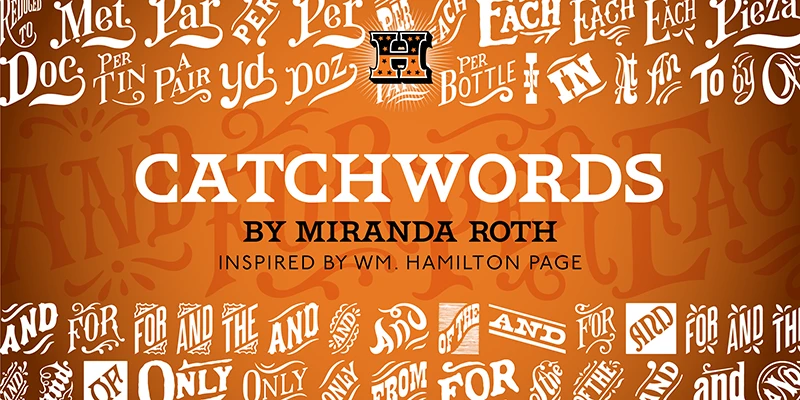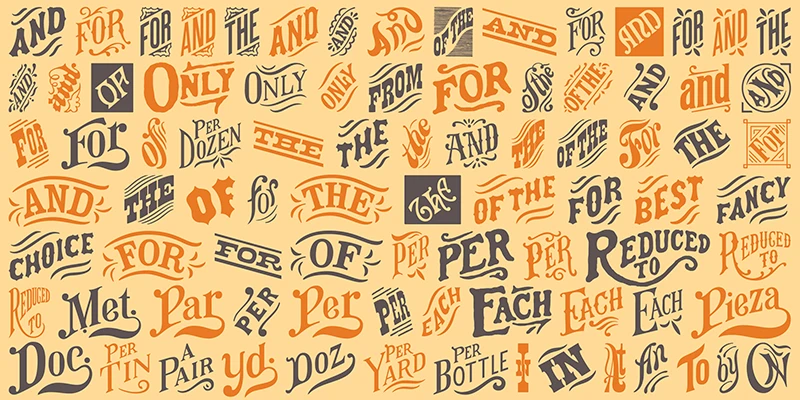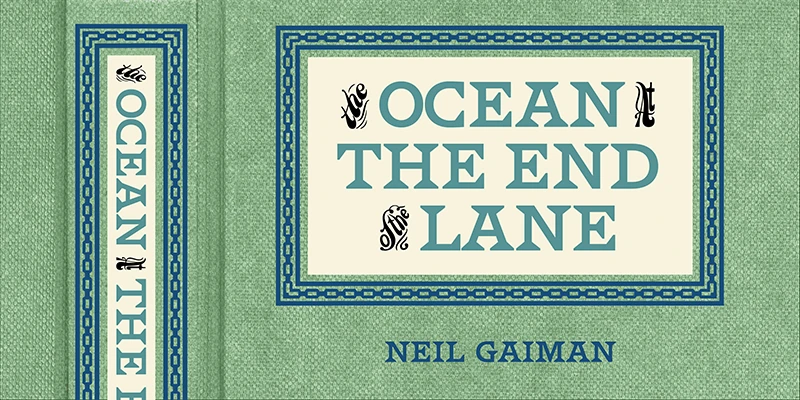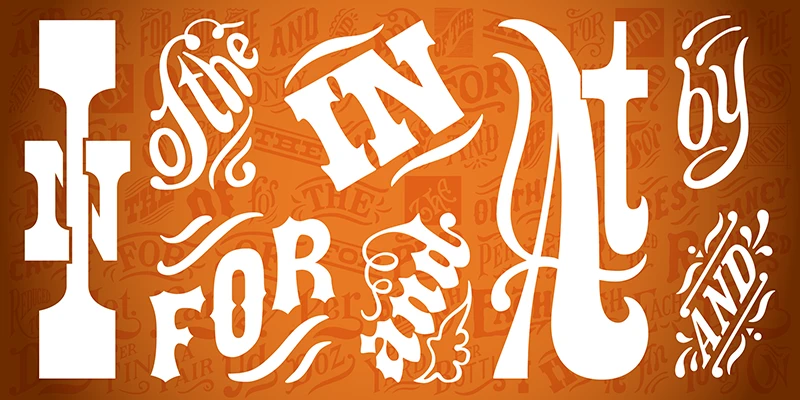
Fonts like HWT Catchwords have always been offered alongside standard alphabets in wood type catalogs. They appear so often on posters as a decorative punch that they have become part of the wood type vernacular. These words could be inserted into a design along with decorative ornaments when space was tight or to add variety to the design. Catchwords features over 80 words based directly on designs offered by Hamilton and other wood type manufacturers of the 19th and early 20th Century.
Designed by Miranda Roth Kirchmeyer